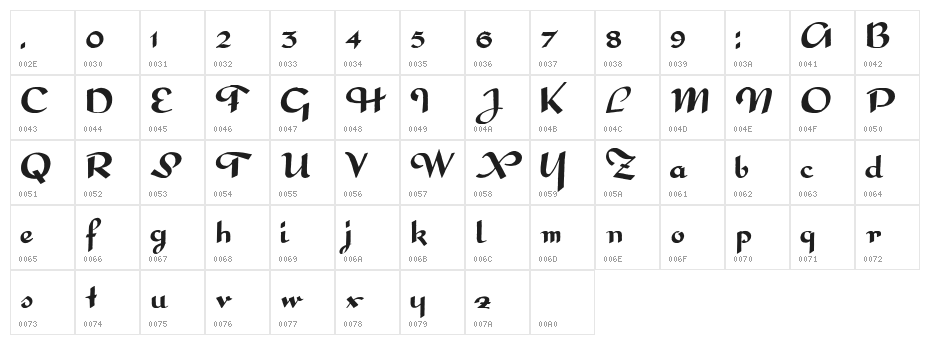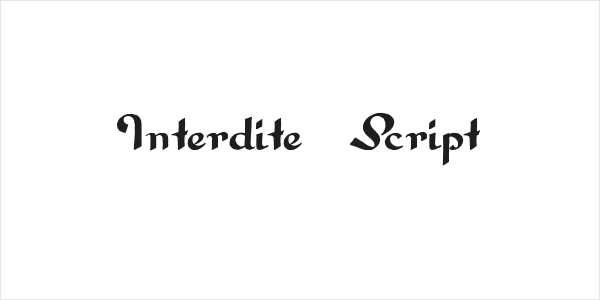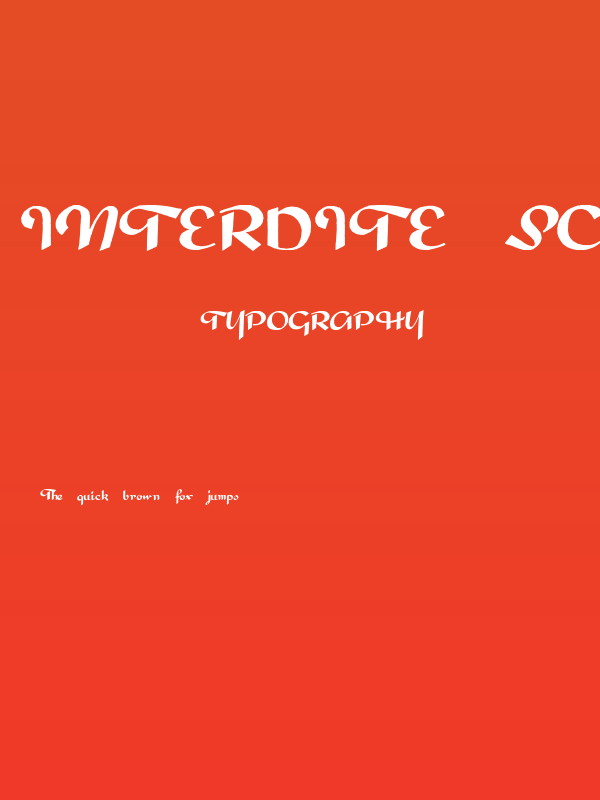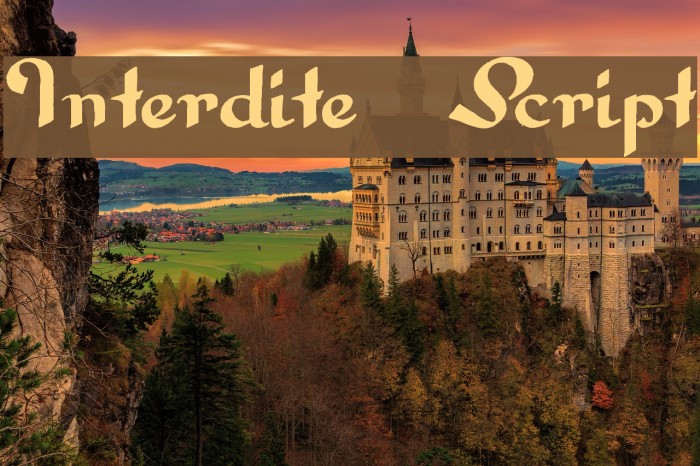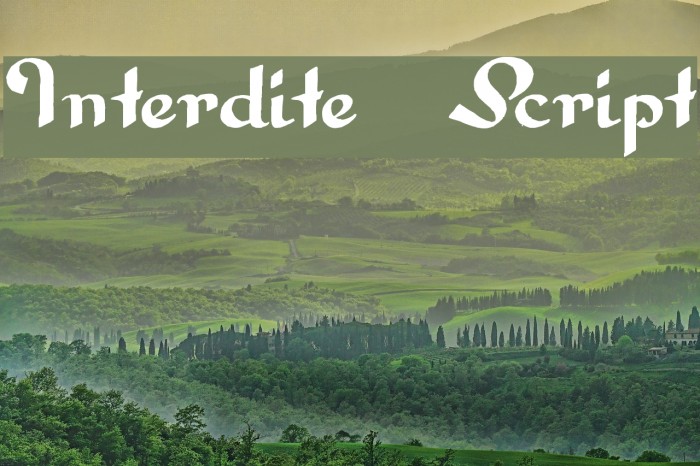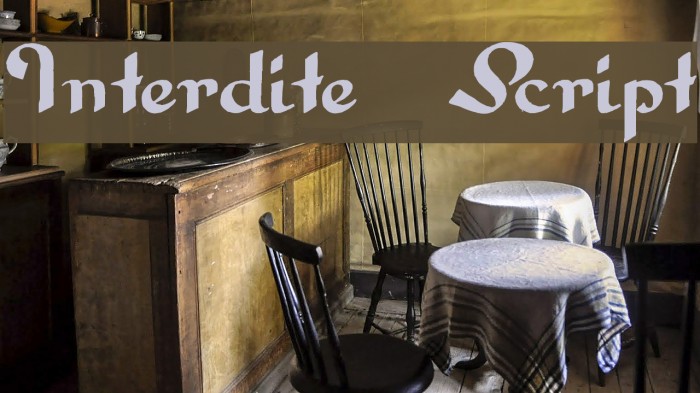
Interdite Script Font
Interdite Script Description
This font features a bold, calligraphic style with a strong presence and a touch of elegance. The uppercase letters are characterized by sharp, angular strokes and a slightly condensed form, giving them a distinctive and authoritative appearance. The lowercase letters maintain a consistent flow with smooth curves and a dynamic rhythm, enhancing readability while retaining a unique flair. The numerals are bold and clear, complementing the overall style with their balanced proportions. Special characters are designed to match the font's aesthetic, providing versatility for various uses. The font's high contrast in stroke thickness adds to its dramatic and eye-catching appeal.
| Proposed Projects | Ideal for branding, logo design, invitations, and headlines where a dramatic and elegant touch is desired. |